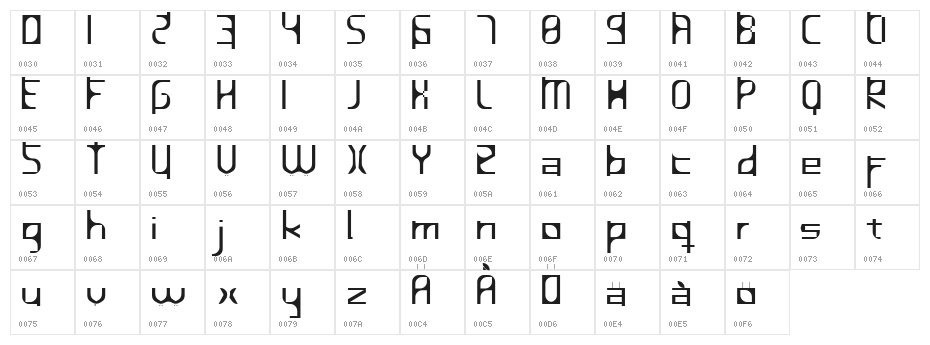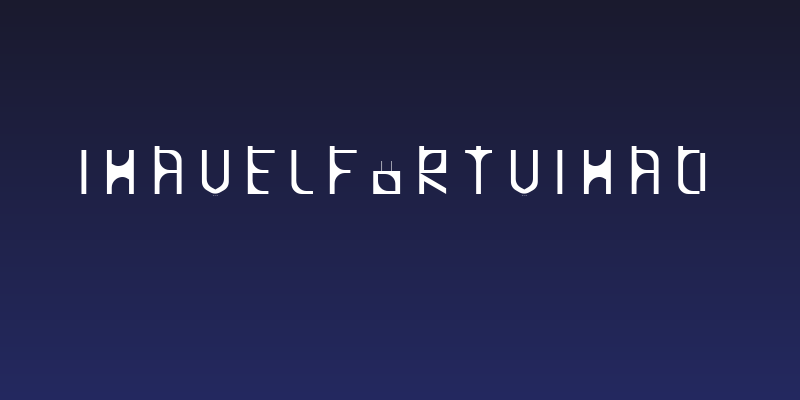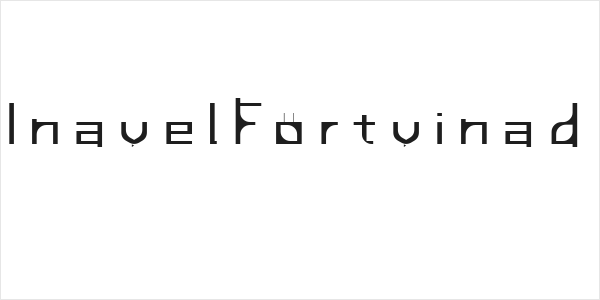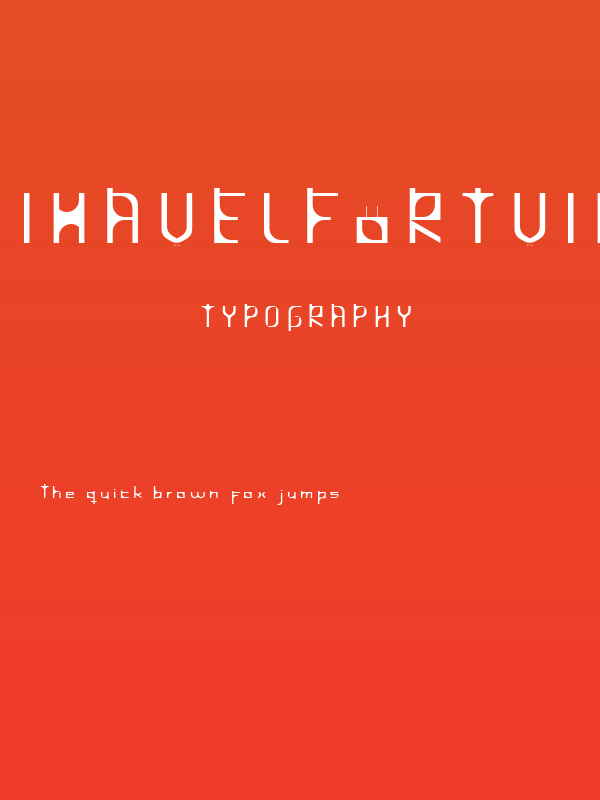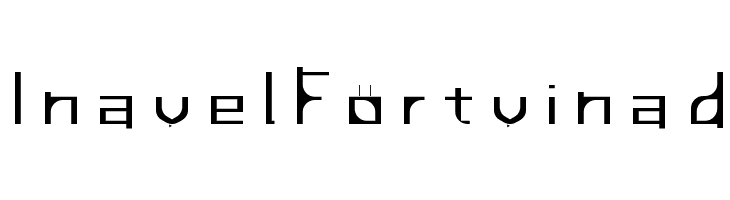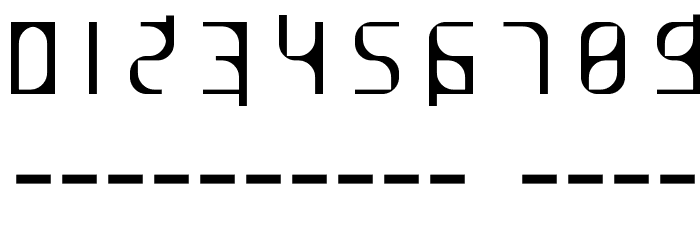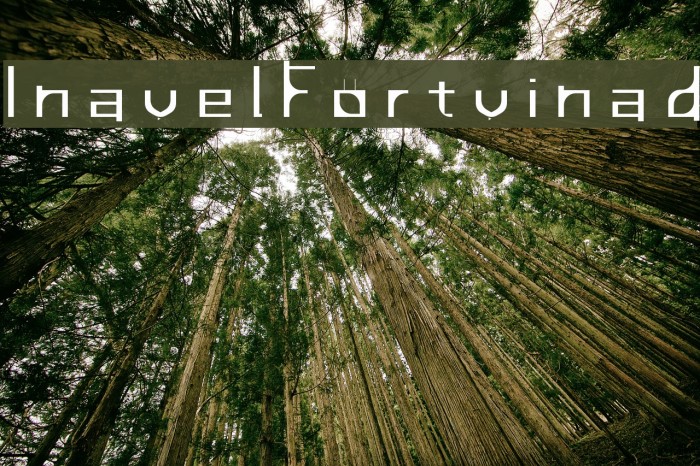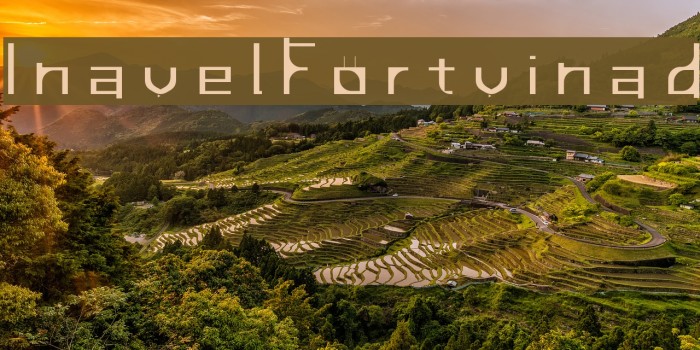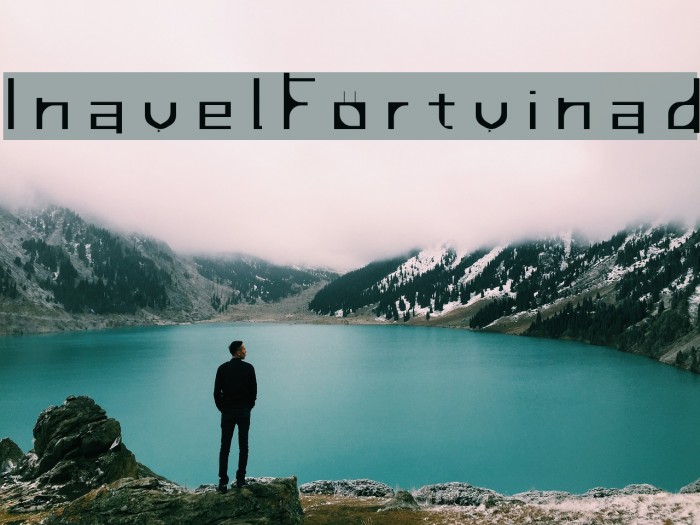
InavelFörtvinad Font
InavelFörtvinad Description
This font features a unique and modern design with geometric elements and sharp angles. The characters have a futuristic feel, with a consistent stroke width that gives it a clean and structured appearance. The uppercase letters are bold and striking, while the lowercase letters maintain a similar style with a slightly softer touch. The numbers are distinct and easy to read, complementing the overall aesthetic. Special characters are designed to match the font's modern theme, making it suitable for a variety of creative projects.
| Proposed Projects | Ideal for technology branding, sci-fi posters, modern art projects, and innovative product packaging. |